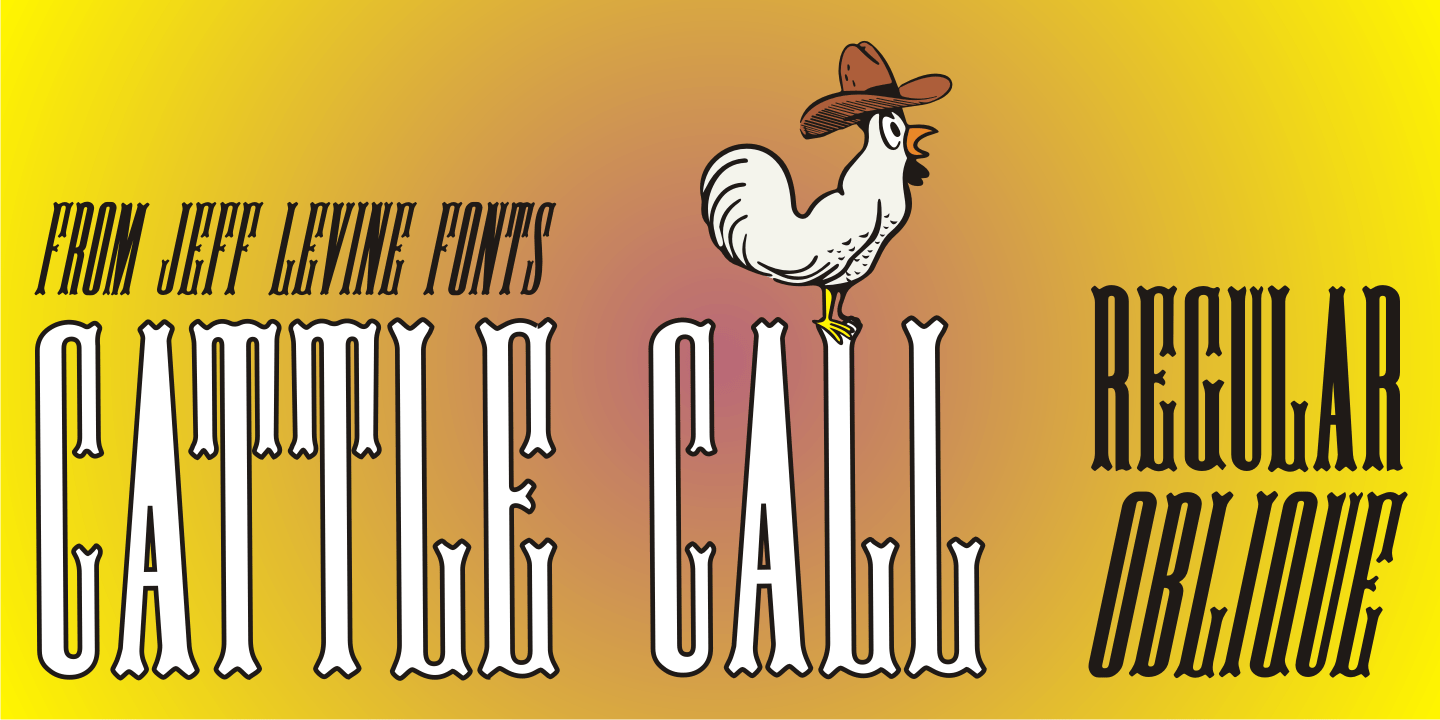
Cattle Call
Cattle Call JNL is reminiscent of Old West posters and broadsides. The design is based on an extra condensed antique wood type and is available in both regular and oblique versions.
Cattle Call JNL Regular by Jeff Levine Fonts